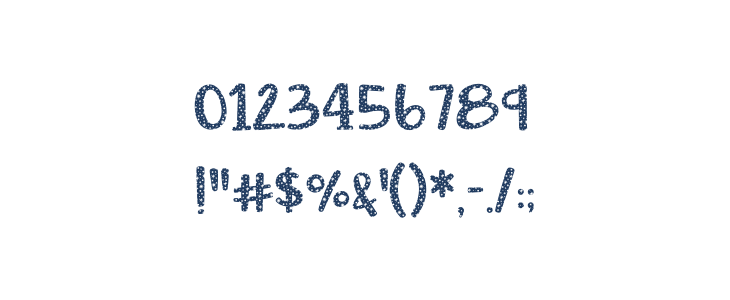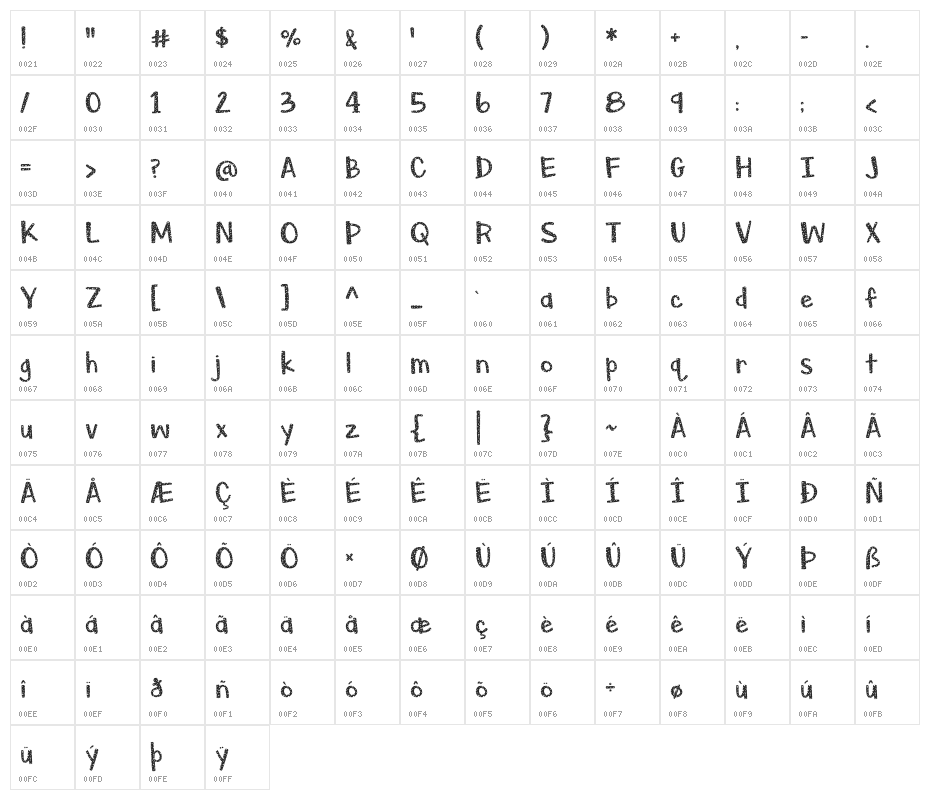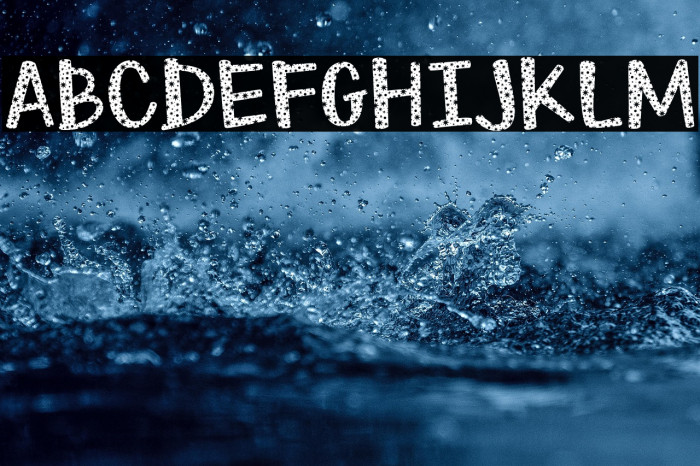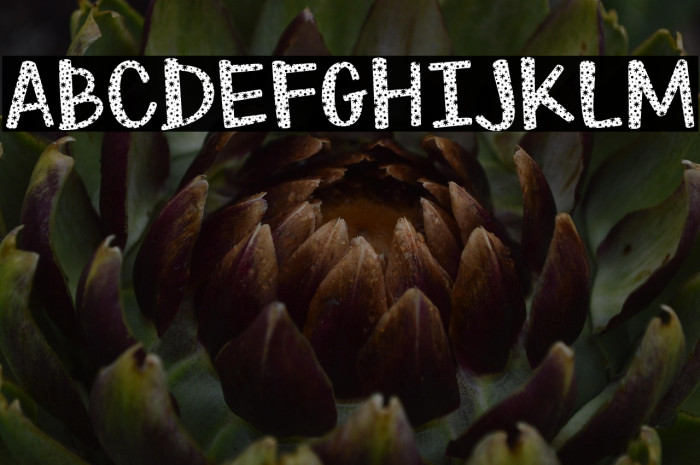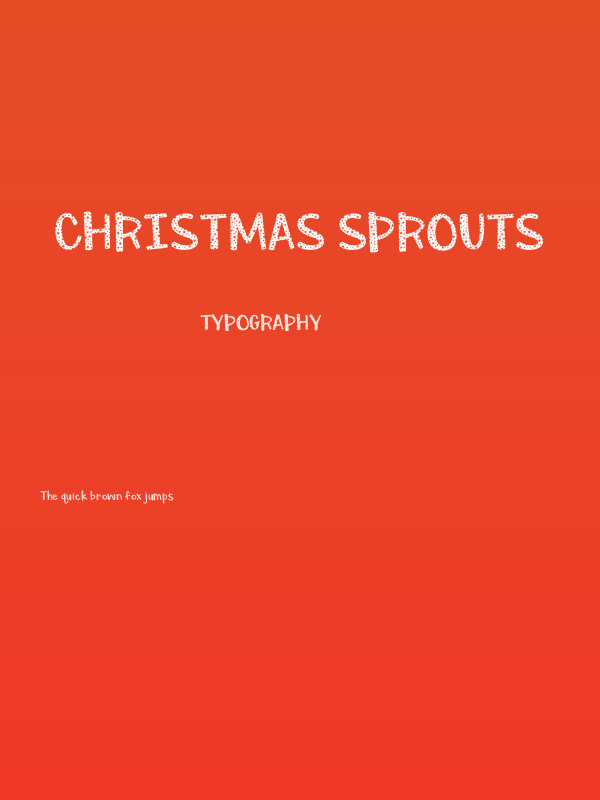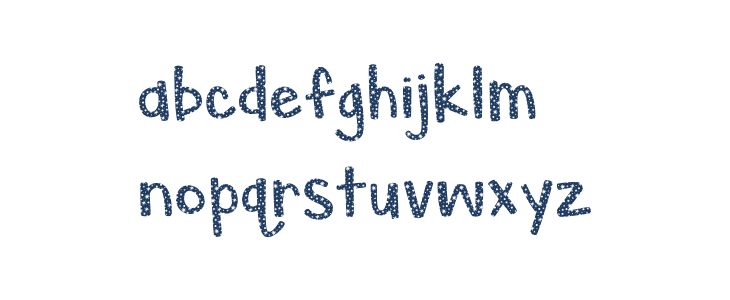
Christmas Sprouts Font
Christmas Sprouts Description
This playful and festive font features a whimsical, hand-drawn style with a unique dotted texture that resembles snowflakes or festive decorations. The characters are bold and slightly irregular, giving them a lively and cheerful appearance. The uppercase and lowercase letters maintain a consistent style, with rounded edges and a casual, friendly feel. The numbers and special characters are equally playful, making this font perfect for holiday-themed designs. Its decorative nature makes it ideal for capturing attention and adding a touch of fun to any project.